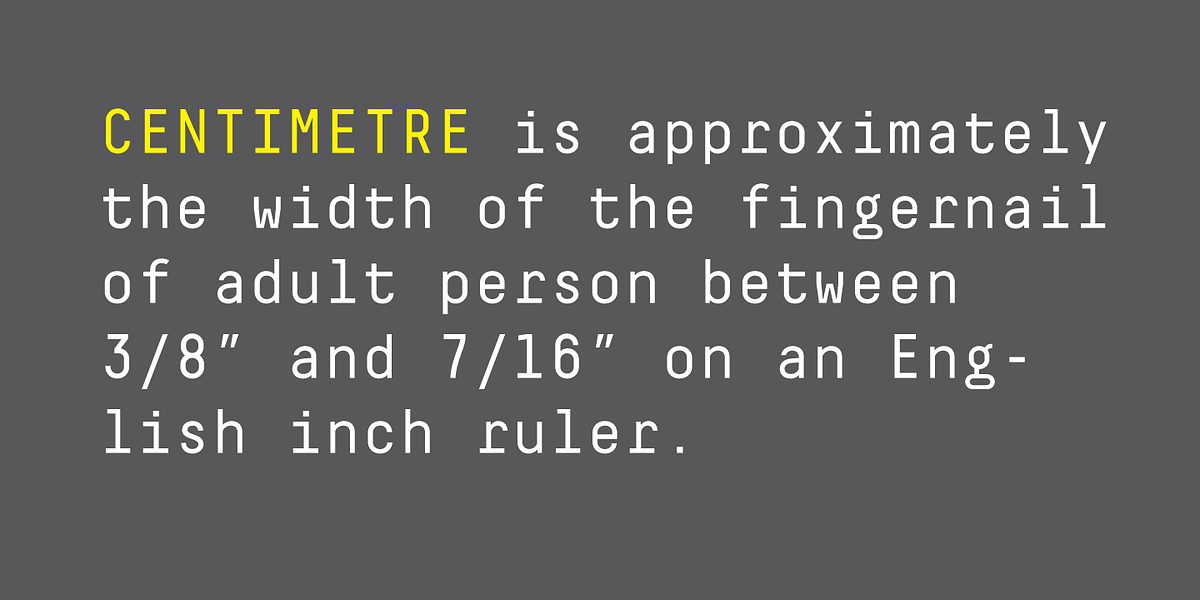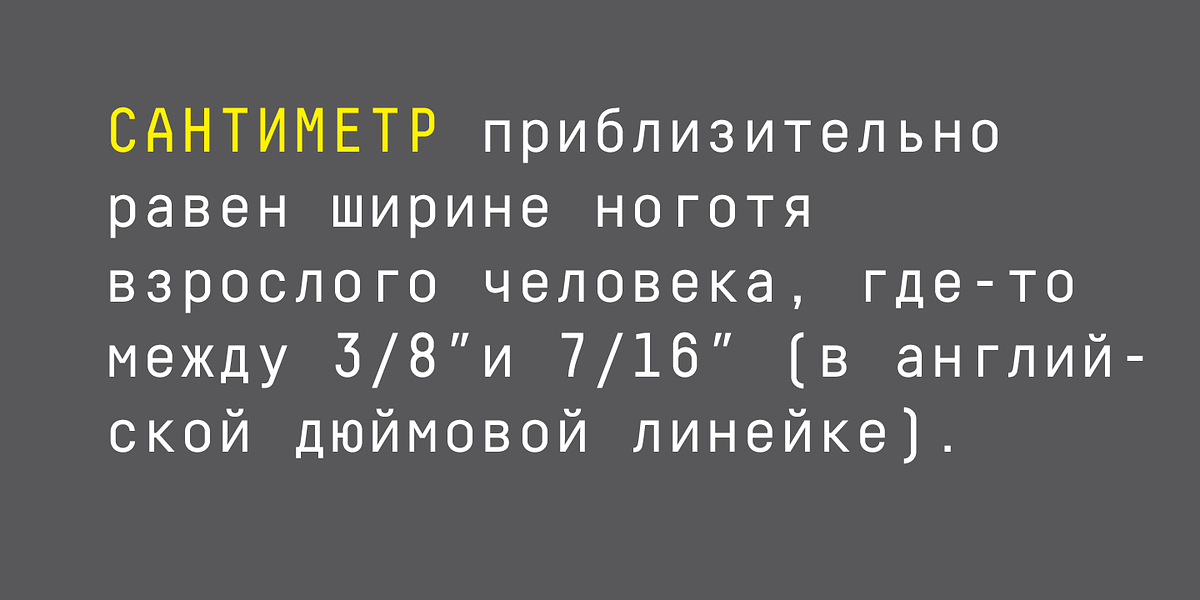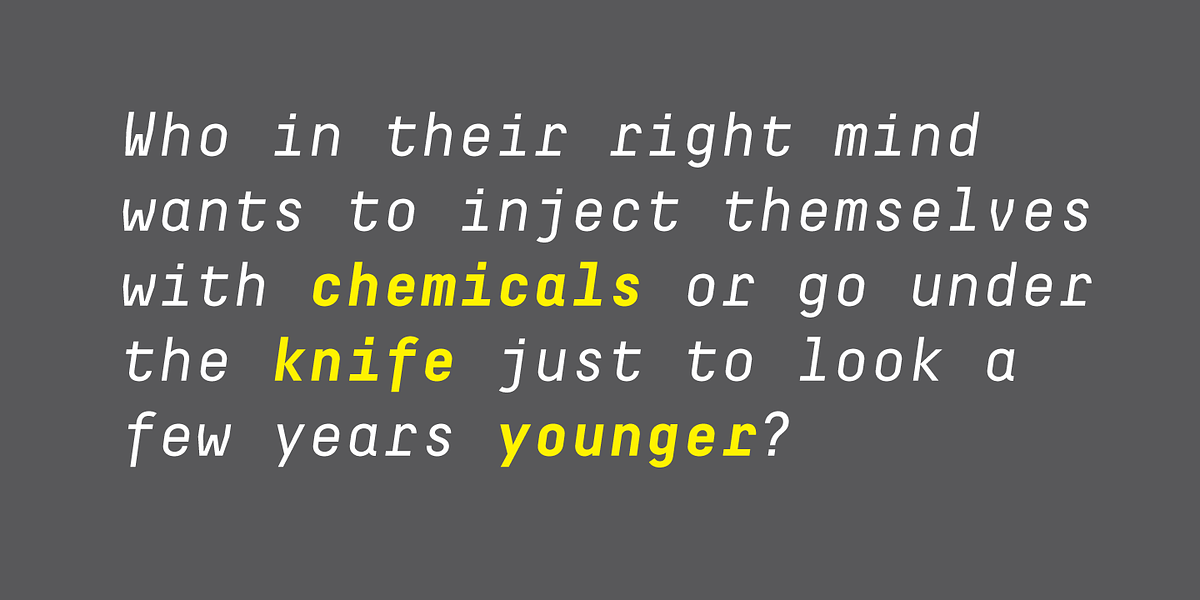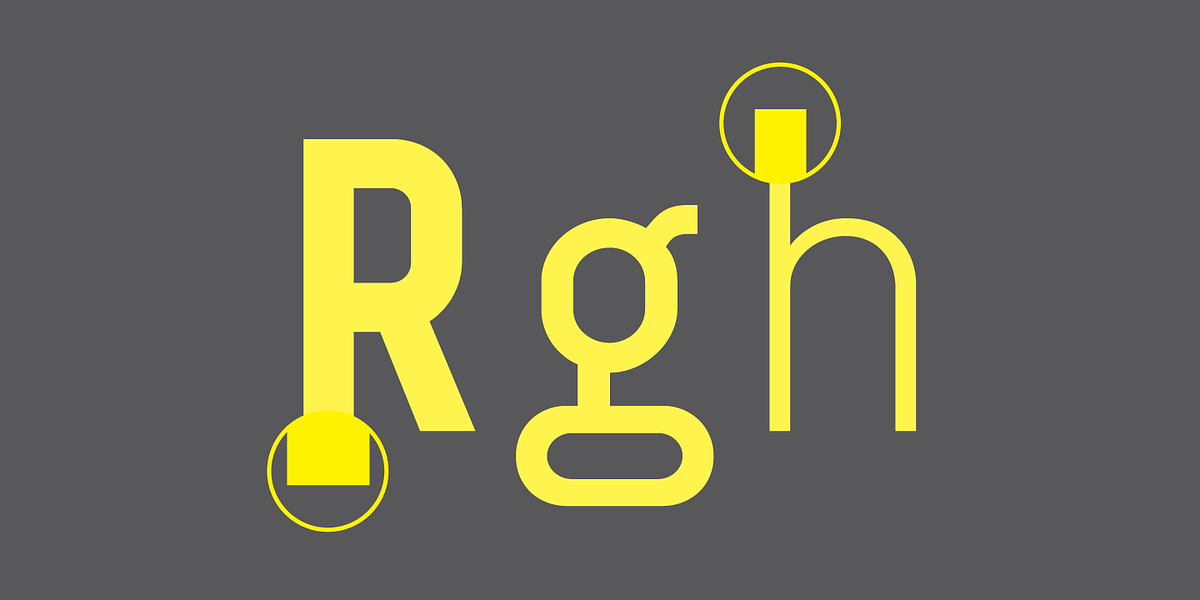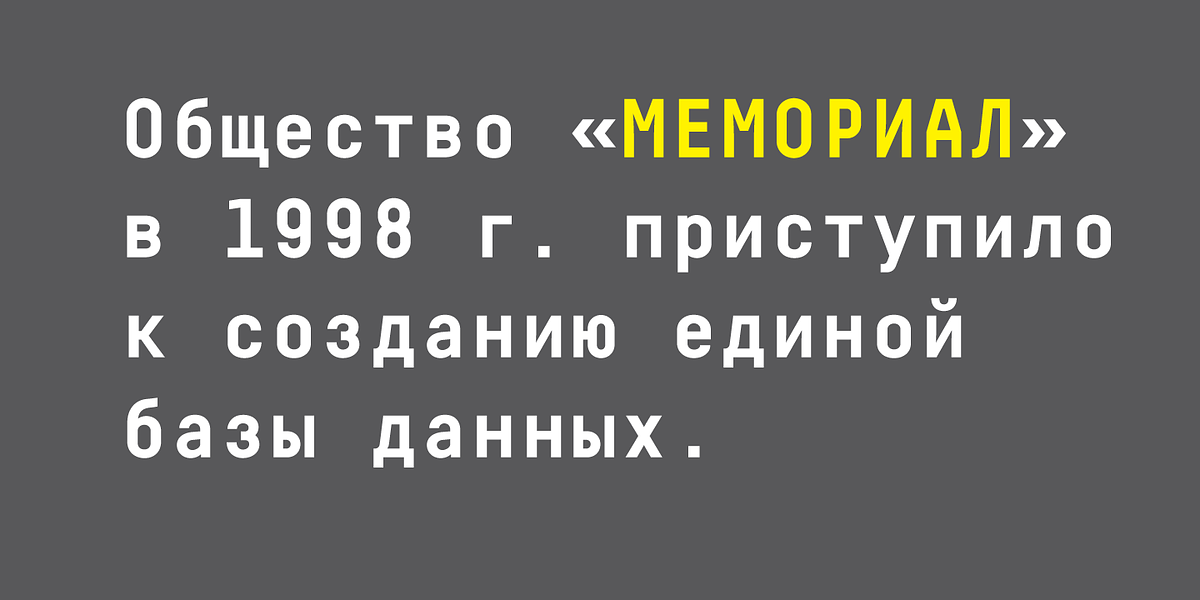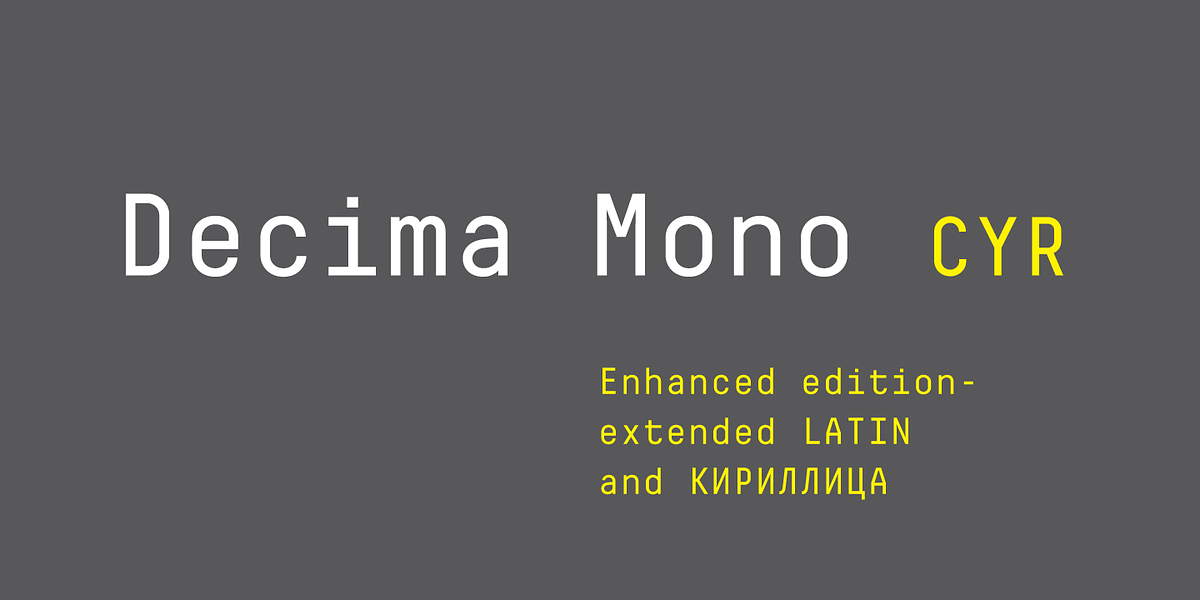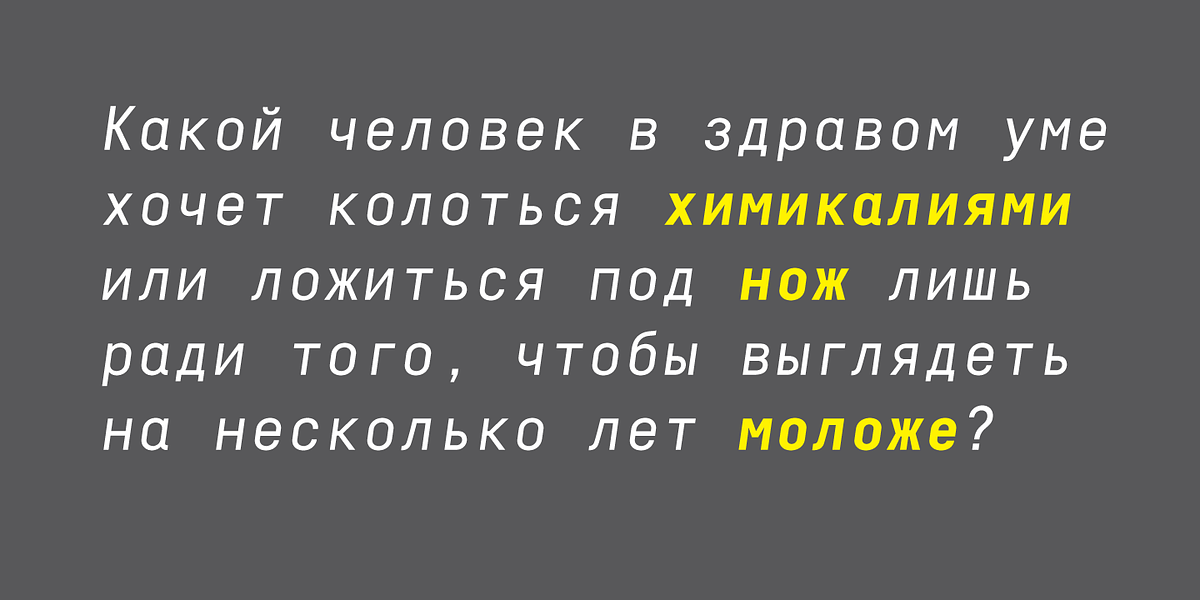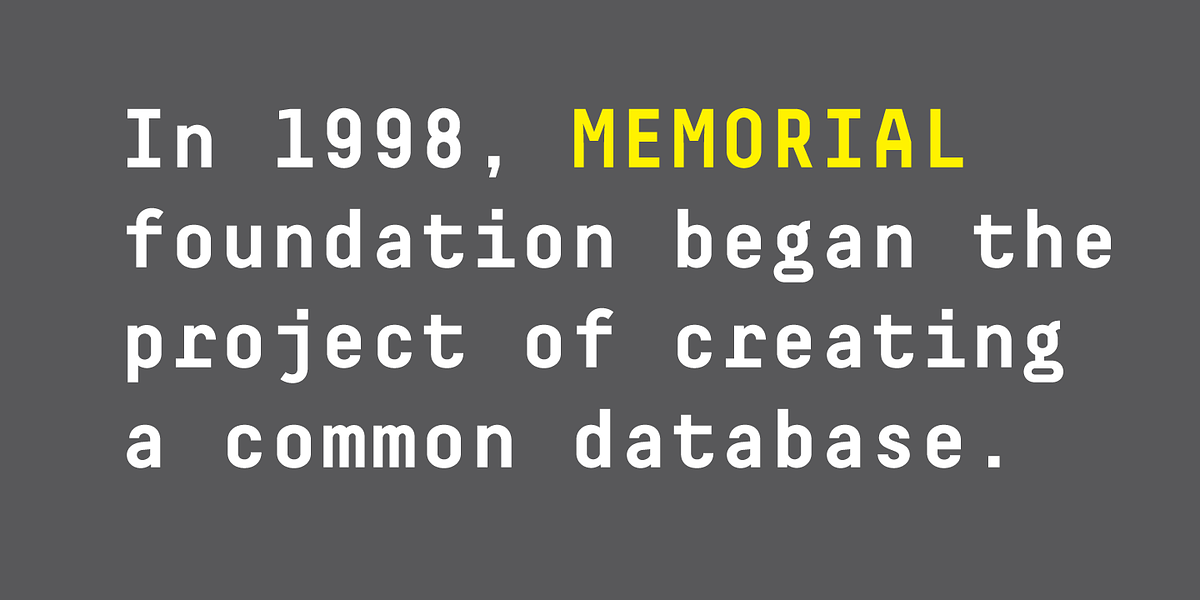
Decima Mono Cyr
Decima Mono Cyr is a versatile monospaced sans serif typeface designed for both display and text use. Its extended character set supports Latin, Cyrillic, and Asian languages, making it suitable for a wide range of applications. The font's clean and legible design makes it well-suited for programming, branding, and editorial projects.